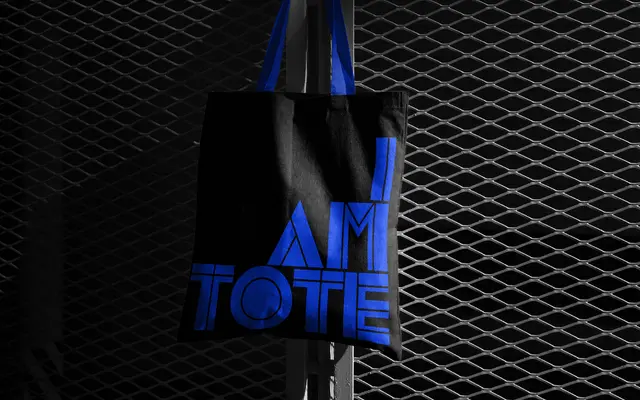
Dekal
The Northern Block · Wolf Magin · 2024
A digital revival of Wolf Magin's 1969 Blackline typeface, rebuilt with three interchangeable inline line styles for screen and print use.
Originally drawn by Wolf Magin in 1969, Blackline's parallel thick-and-thin inline structure gave it a distinctive presence in the dry transfer lettering era. This revival expands the line spacing and character construction for improved screen rendering, while retaining the period character. Three interchangeable line styles, thirteen stylistic sets and over 500 characters per style make it well suited to apparel, posters and editorial display.
A digital revival of Blackline, Dekal uses contrasting thick and thin parallel lines to create a distinctive inline display character rooted in the dry transfer lettering era of the late 1960s and early 1970s.